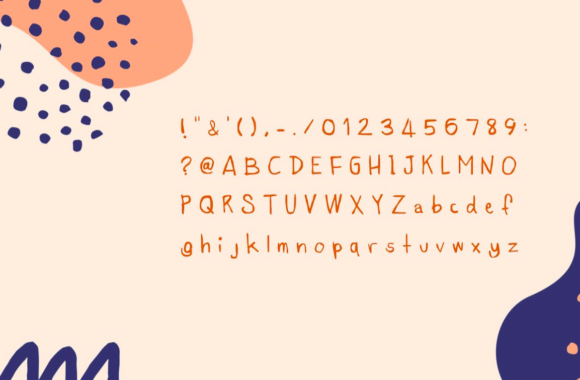
Make It Fun! Font
About Make It Fun! Font
Make It Fun! is a cute handwritten font. Whether you’re looking for fonts for Instagram or calligraphy scripts for DIY projects, Make It Fun! will turn any creative idea into a true piece of art!